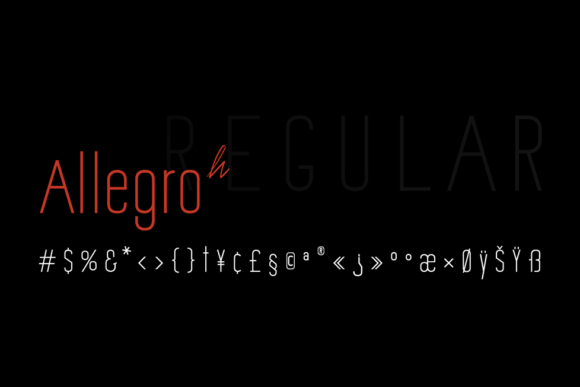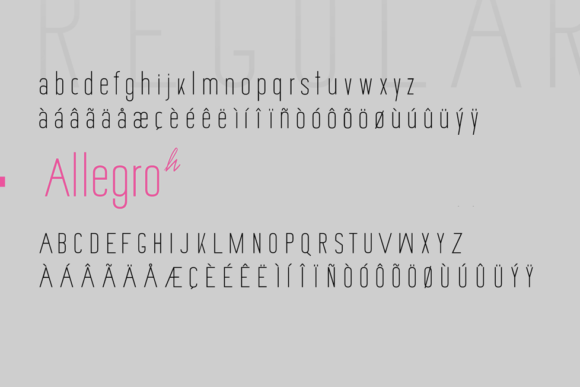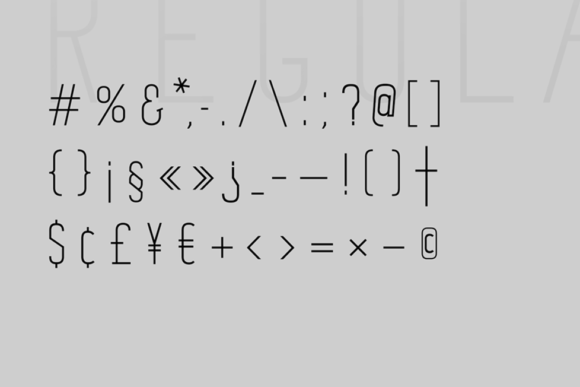
Unlocking the Power of Allegro Sans Font
Have you ever stared at a blank canvas, waiting for the perfect font to bring your creative idea to life? The blank page stares back, and the cursor blinks relentlessly, taunting you to make the first move. But what if the right font could be the spark that sets your imagination ablaze?
Enter Allegro Sans Font, a clean, bright, and cheerful sans serif font inspired by the vibrant speed and gentle movements of the Allegro tempo. This font is more than just a design element – it’s a catalyst for creativity, designed to bring your most innovative ideas to the forefront.
For designers, Allegro Sans Font offers a valuable tool for breathing new life into their work. Its minimalistic design and versatility make it an ideal choice for a wide range of projects, from branding and marketing materials to digital interfaces and publications. With Allegro Sans Font, the possibilities are endless, and the results are nothing short of captivating.
- Font Style: Sans-serif, designed for modern and clean typography
- Language Support: Supports over 200 languages, including Latin, Cyrillic, and Greek scripts
- Unique Characteristics: Geometric shapes and clean lines create a modern and sophisticated look, ideal for corporate branding and digital design
- Font Weight and Italic: Available in 6 font weights (Light, Regular, Medium, Bold, Heavy, Black) and 2 italic styles (Italic, Oblique)
Allegro Sans Font Review
Allegro Sans is a beautifully crafted sans-serif font that shines in many areas. ✨ The rounded edges and subtle curves make it perfect for modern designs, and the font’s versatility allows it to work seamlessly across various mediums, from digital screens to print materials.
Here are some of the things that Allegro Sans does exceptionally well:
- ✨ Friendly and approachable: The font’s rounded edges create a warm and inviting feel, making it perfect for corporate branding, websites, and other digital applications.
- ✨ Highly legible: The font’s x-height and line spacing are optimized for easy reading, making it a great choice for body text, headlines, and other long-form content.
- ✨ Stylish and modern: The font’s sleek design and clean lines make it perfect for contemporary designs, from fashion and lifestyle to tech and innovation.
However, like any font, Allegro Sans has its limitations:
- ⚠️ Limited support for non-Latin scripts: While the font supports a wide range of languages, it may not be ideal for projects that require extensive support for non-Latin scripts.
- ⚠️ May not be suitable for high-contrast designs: The font’s subtle curves and rounded edges may not be the best choice for high-contrast designs, as they can get lost in the background.
Overall, Allegro Sans is a fantastic font that excels in many areas. While it has some limitations, its versatility, legibility, and stylish design make it a great choice for a wide range of projects.